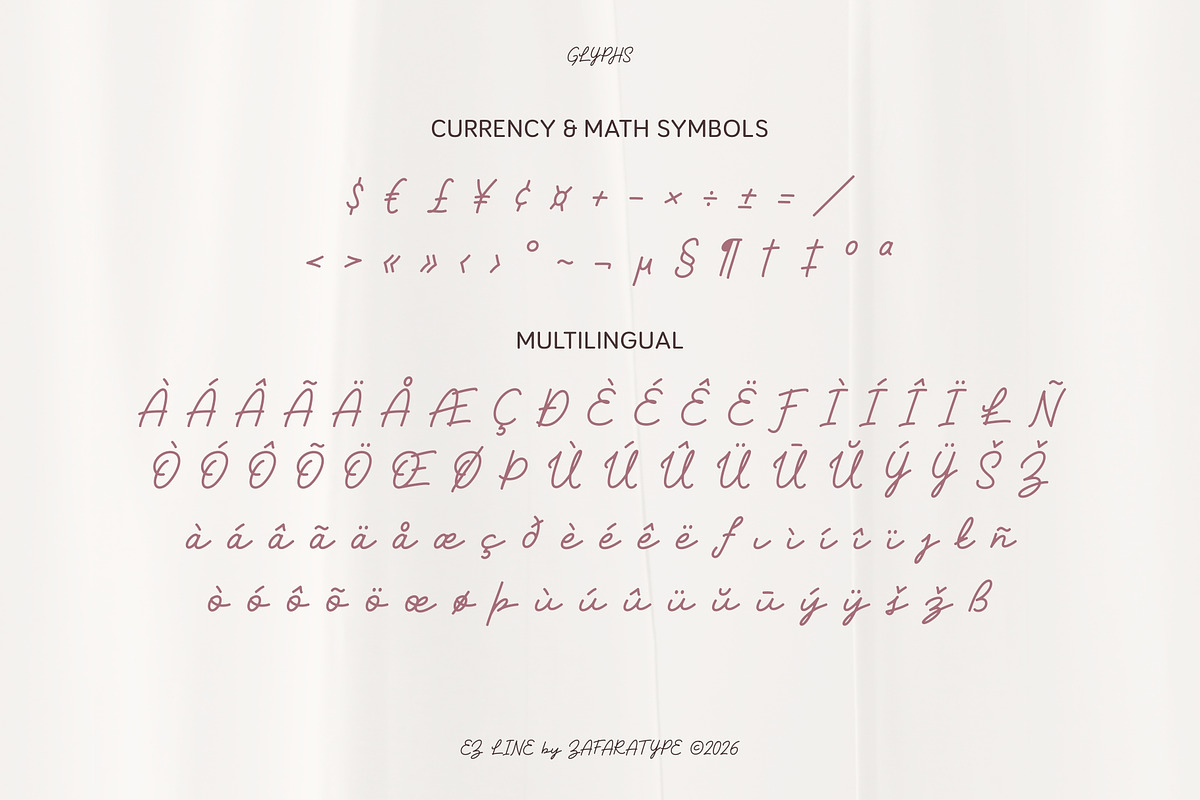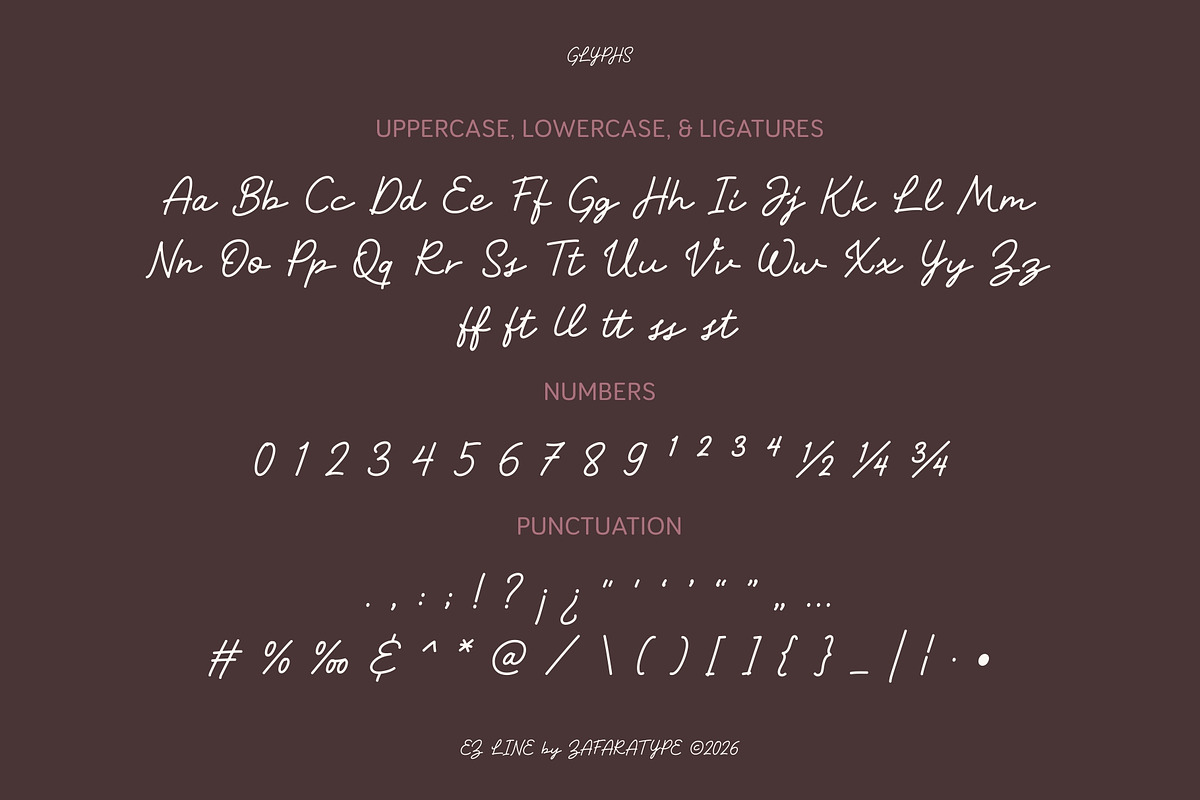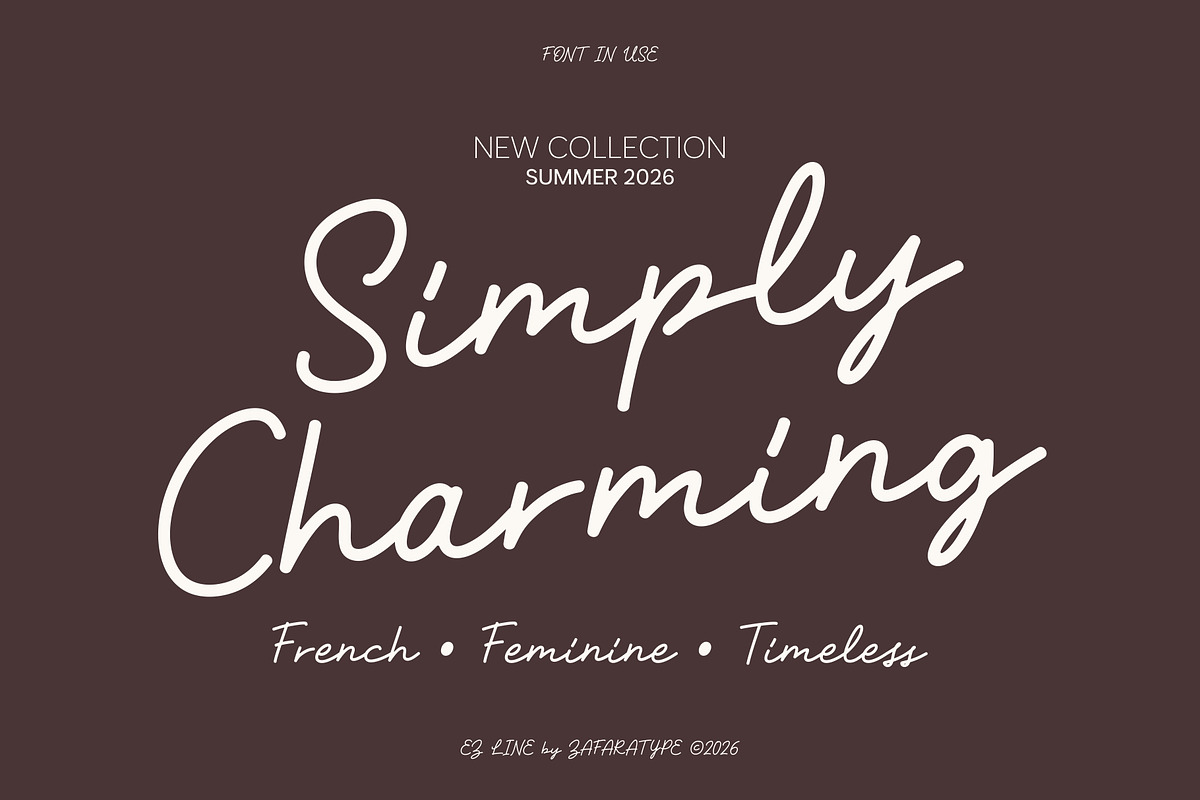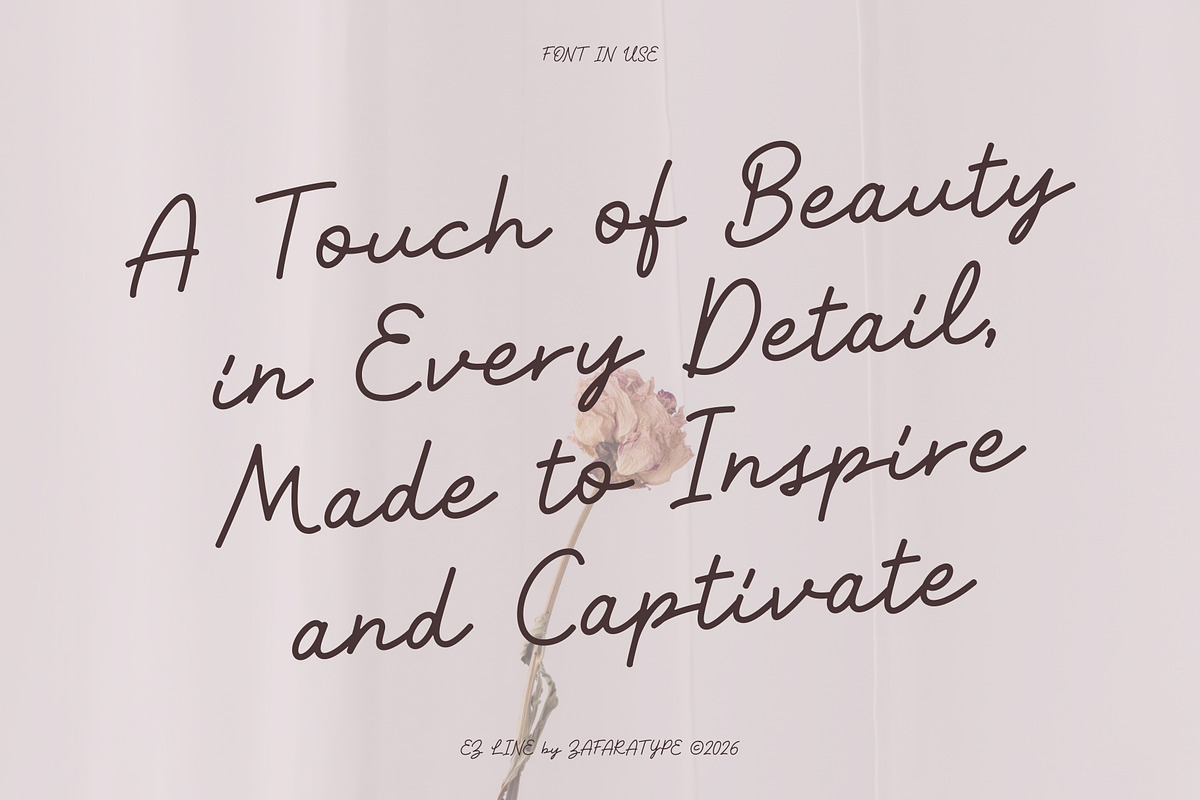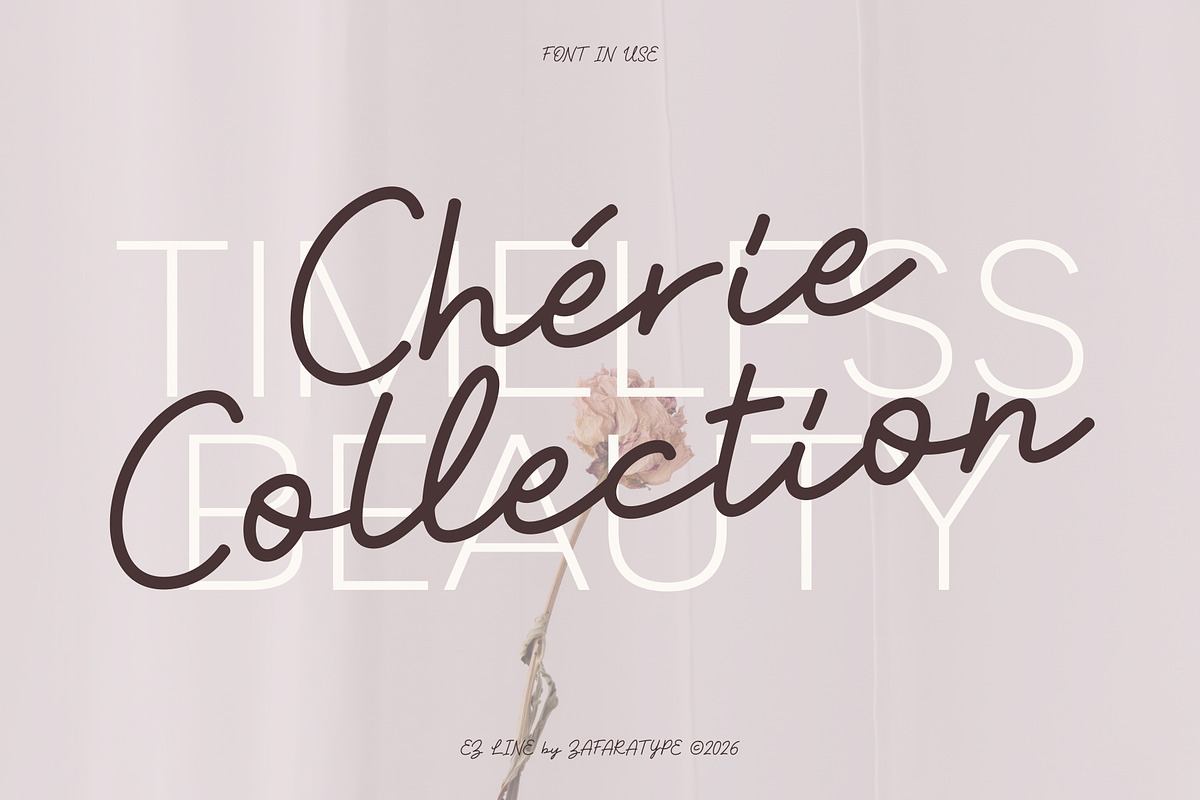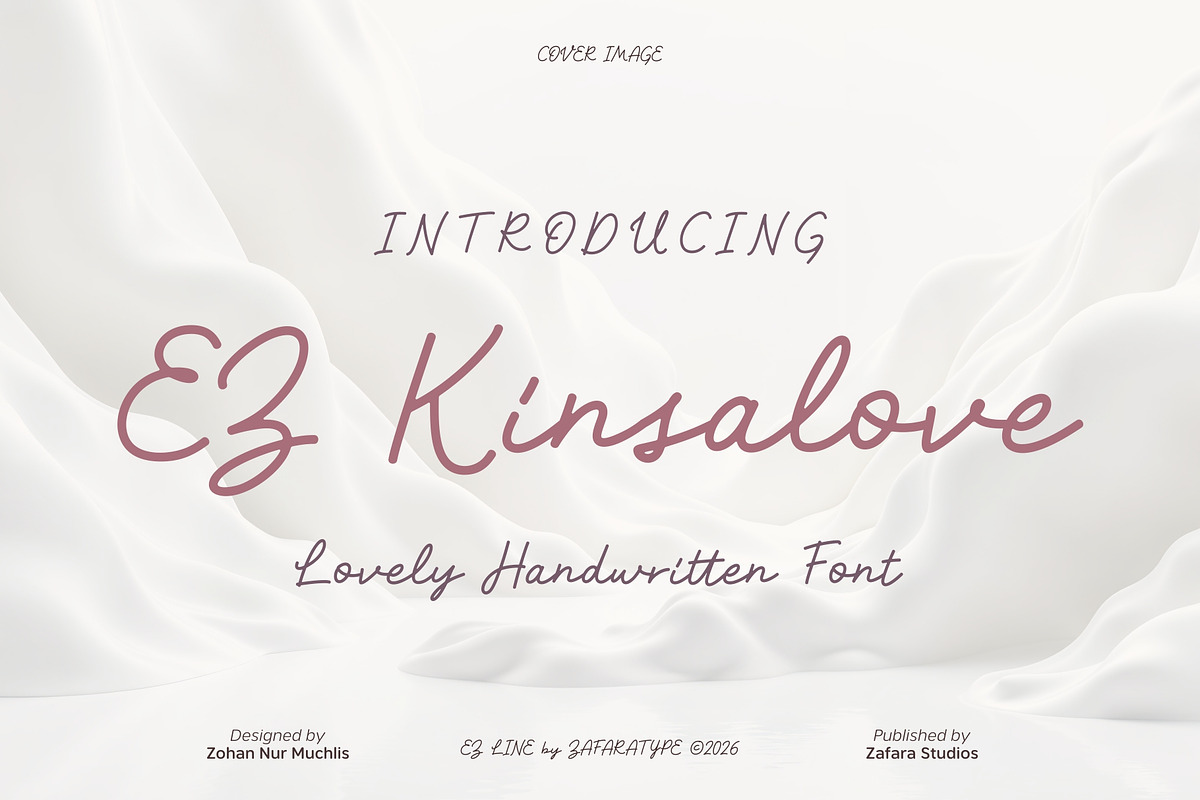
EZ Kinsalove
EZ Kinsalove is a lovely and elegant handwritten font that blends delicate, flowing strokes with a feminine and graceful personality. Featuring smooth letterforms, graceful curves, dramatic capitals, and an effortless handwritten feel, it brings a beautiful and romantic touch to your designs while keeping every word expressive and naturally flowing.
Designed to capture the charm of lovely, elegant handwriting, EZ Kinsalove is perfect for branding, invitations, wedding stationery, greeting cards, quotes, social media, packaging, logos, fashion designs, stationery, and other creative projects. Whether you're creating something romantic, graceful, or heartfelt, it adds a delicate handcrafted touch that makes every design feel more beautiful and memorable.
The details:
249 glyphs: Uppercase, lowercase, ligatures, numbers & punctuation, symbols & accents, multilingual support
25 languages: Afrikaans, Albanian, Basque, Catalan, Danish, Dutch, English, Estonian, Faroese, Filipino, Finnish, French, Galician, German, Icelandic, Indonesian, Irish, Italian, Malay, Norwegian Bokmål, Portuguese, Spanish, Swahili, Swedish, Zulu